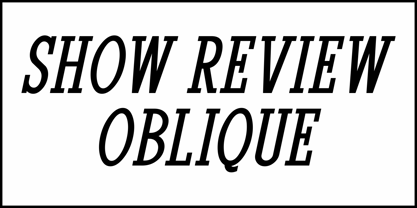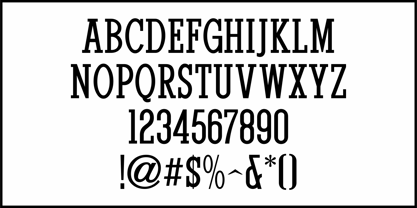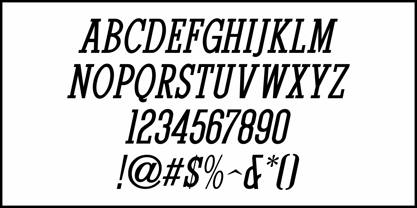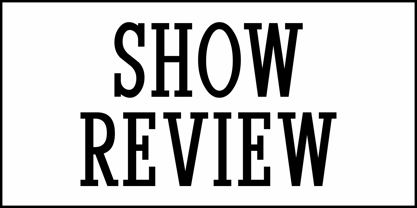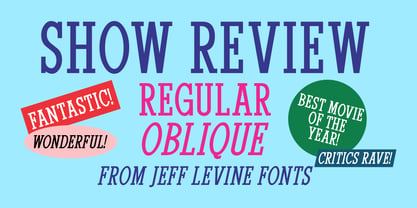
Show Review JNL
by Jeff Levine
In the January 4, 1941 issue of Showman's Trade Review was an ad for the film "Her First Romance". The blurb at the top of the promotional piece was set in Rockwell Condensed, part of a family designed for Monotype in 1934 under the supervision of Frank Hinman Pierpont.
Considered a monoweighted geometric slab serif, it shares some similarities with Stymie, Memphis and Beton.
This digital interpretion is called Show Review JNL (a small homage to the magazine in which the ad appeared) and is available in both regular and oblique versions.